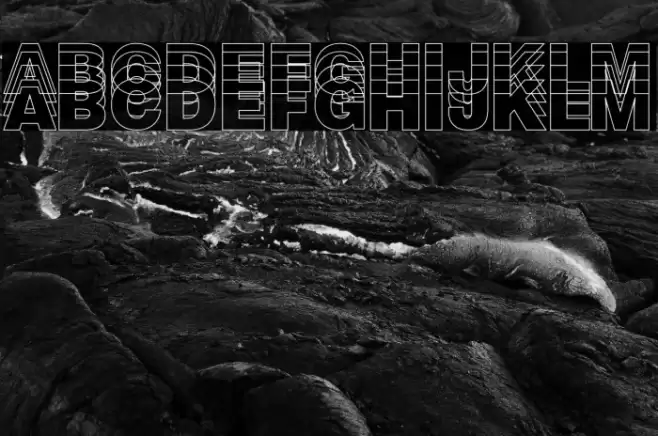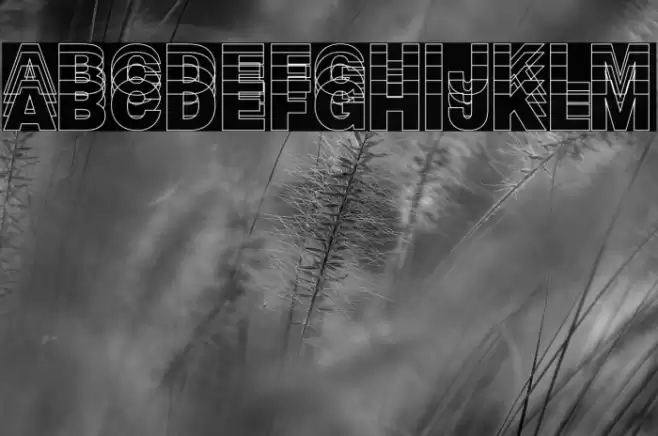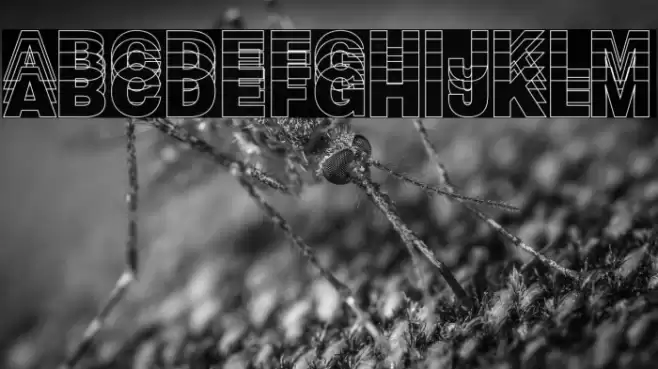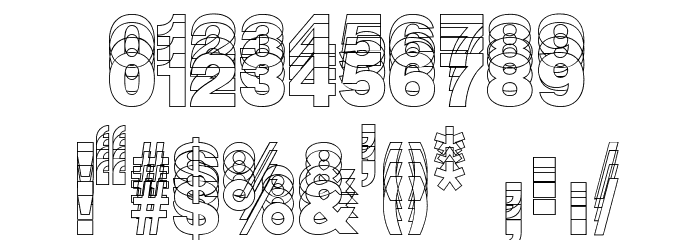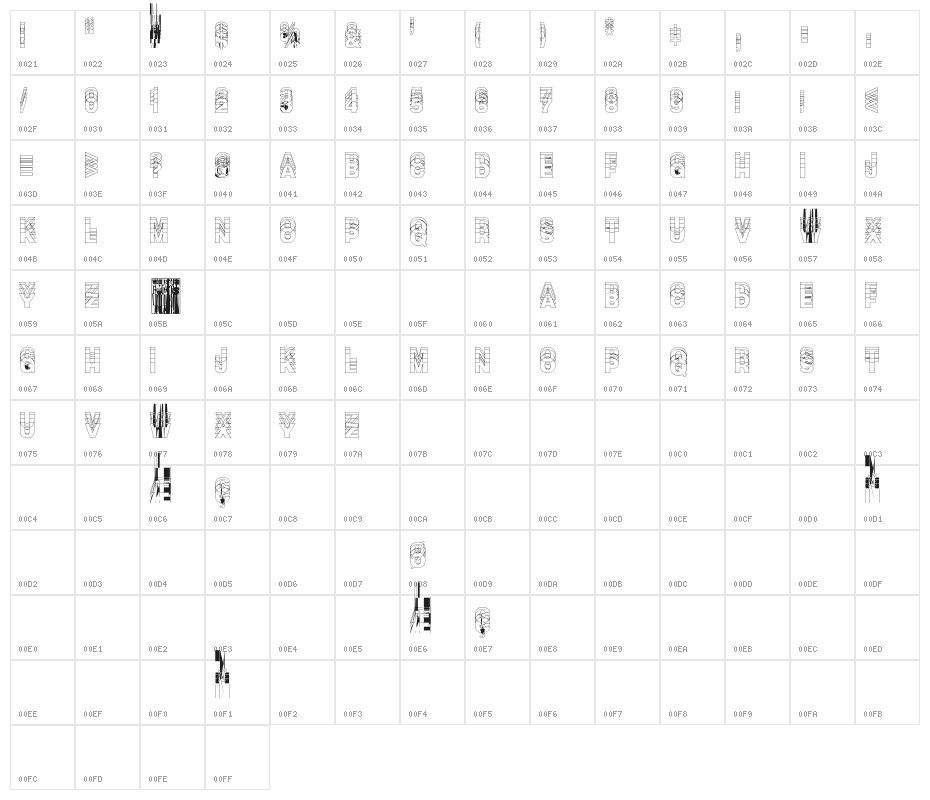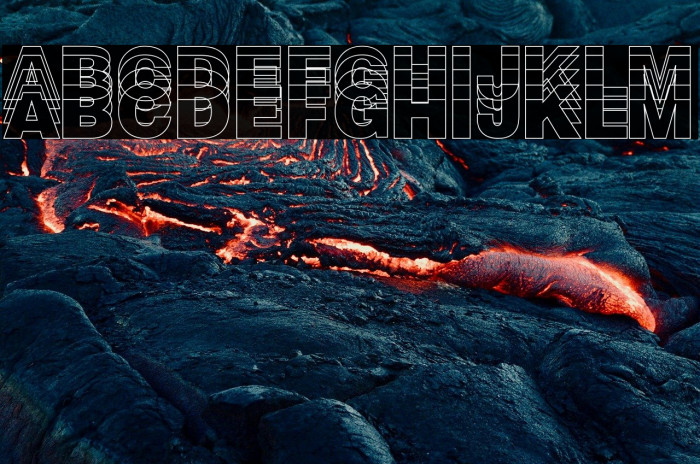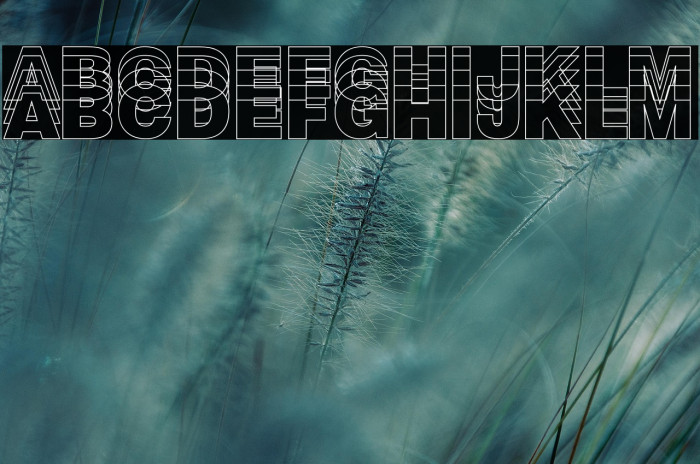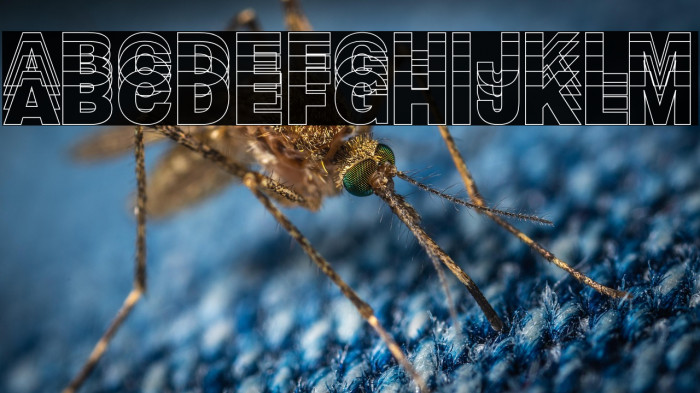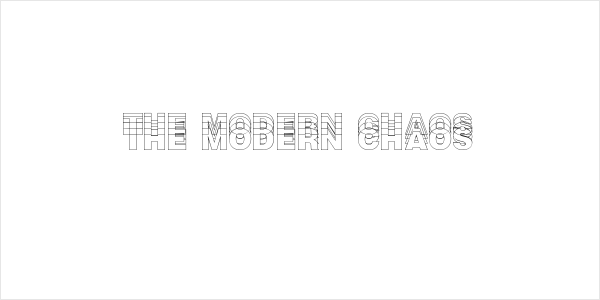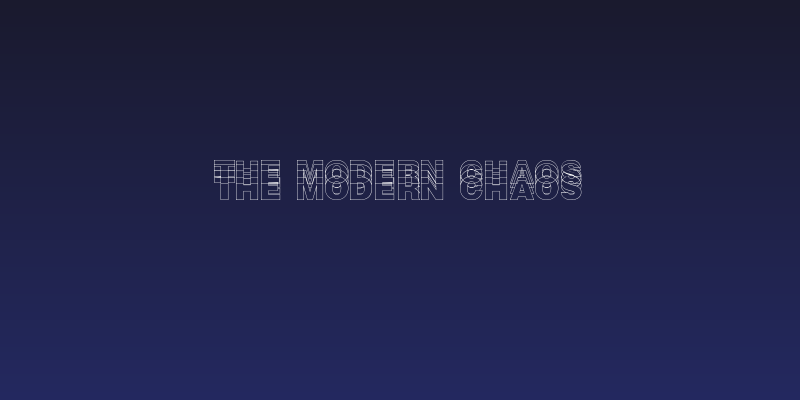
The Modern Chaos Font
The Modern Chaos Description
This font features a unique and modern design with overlapping outlines that create a sense of depth and complexity. The characters are bold and geometric, with a strong emphasis on straight lines and sharp angles. The overlapping elements give it a chaotic yet structured appearance, making it stand out in any design. The uppercase and lowercase letters maintain a consistent style, while the numbers and special characters follow the same intricate pattern. This font is ideal for projects that require a bold statement and a contemporary edge.
A bold, geometric font with overlapping outlines for a modern, chaotic look from Distorted Eroded fonts.
- Font: The Modern Chaos
- Proposed Projects: Ideal for branding, posters, album covers, and any project needing a bold, modern statement.